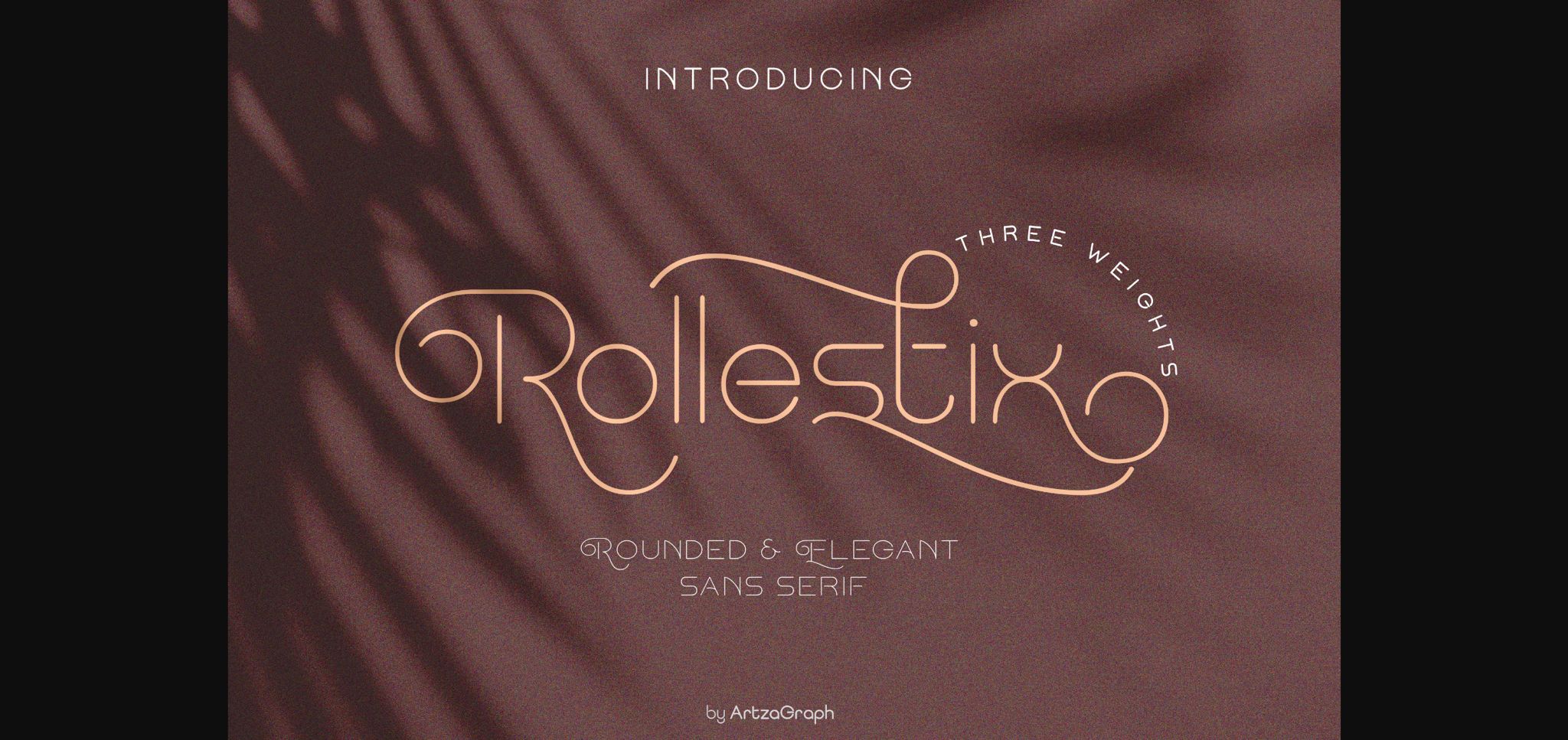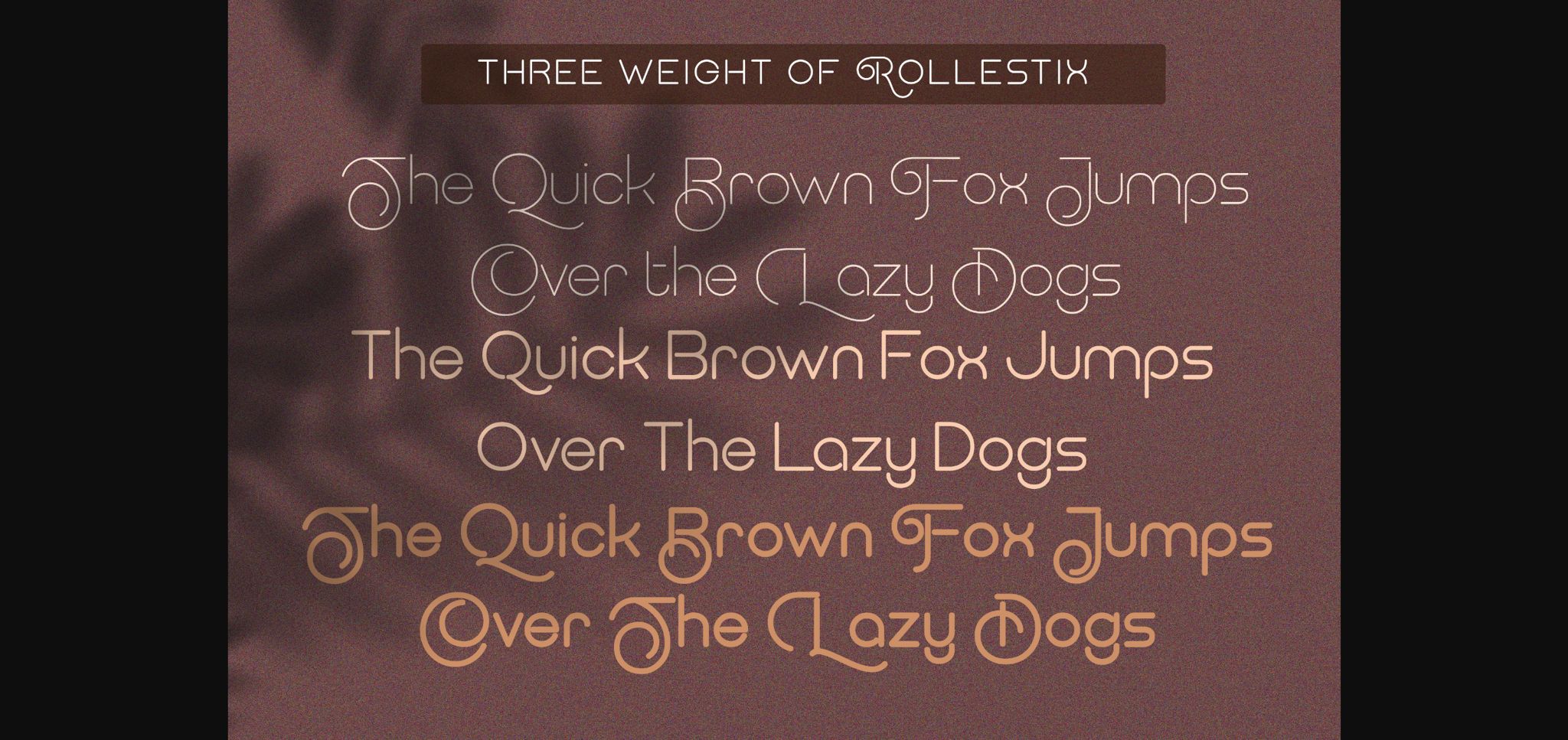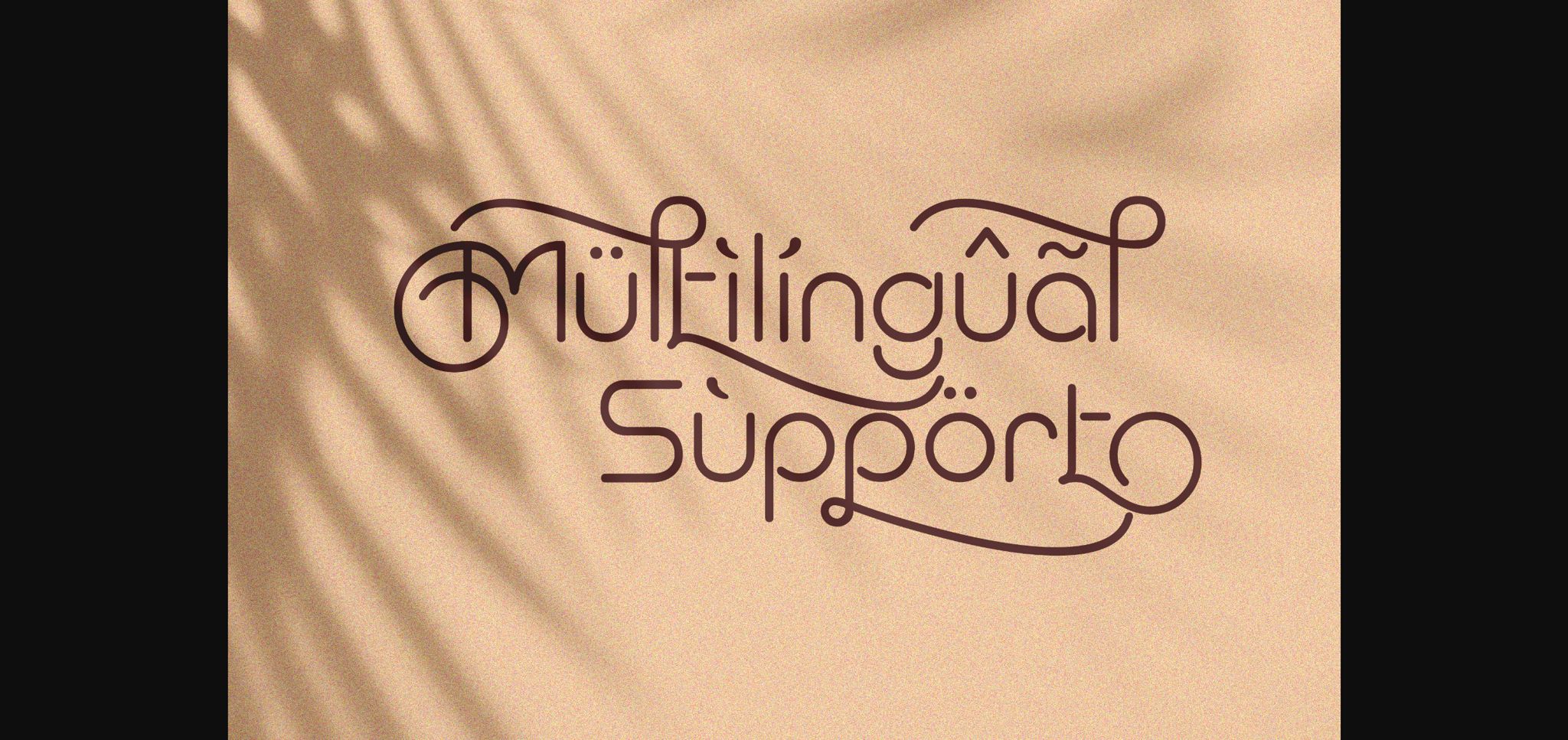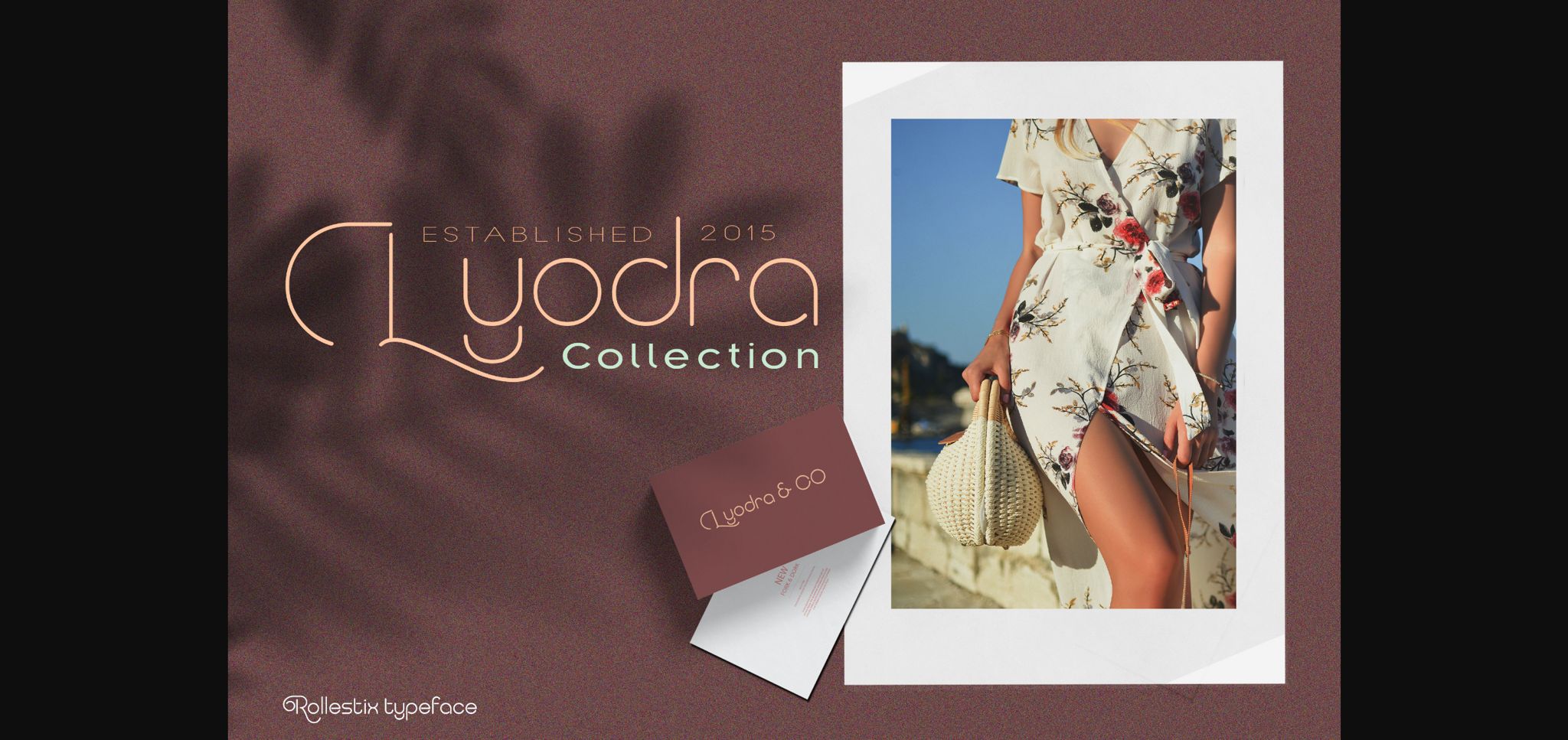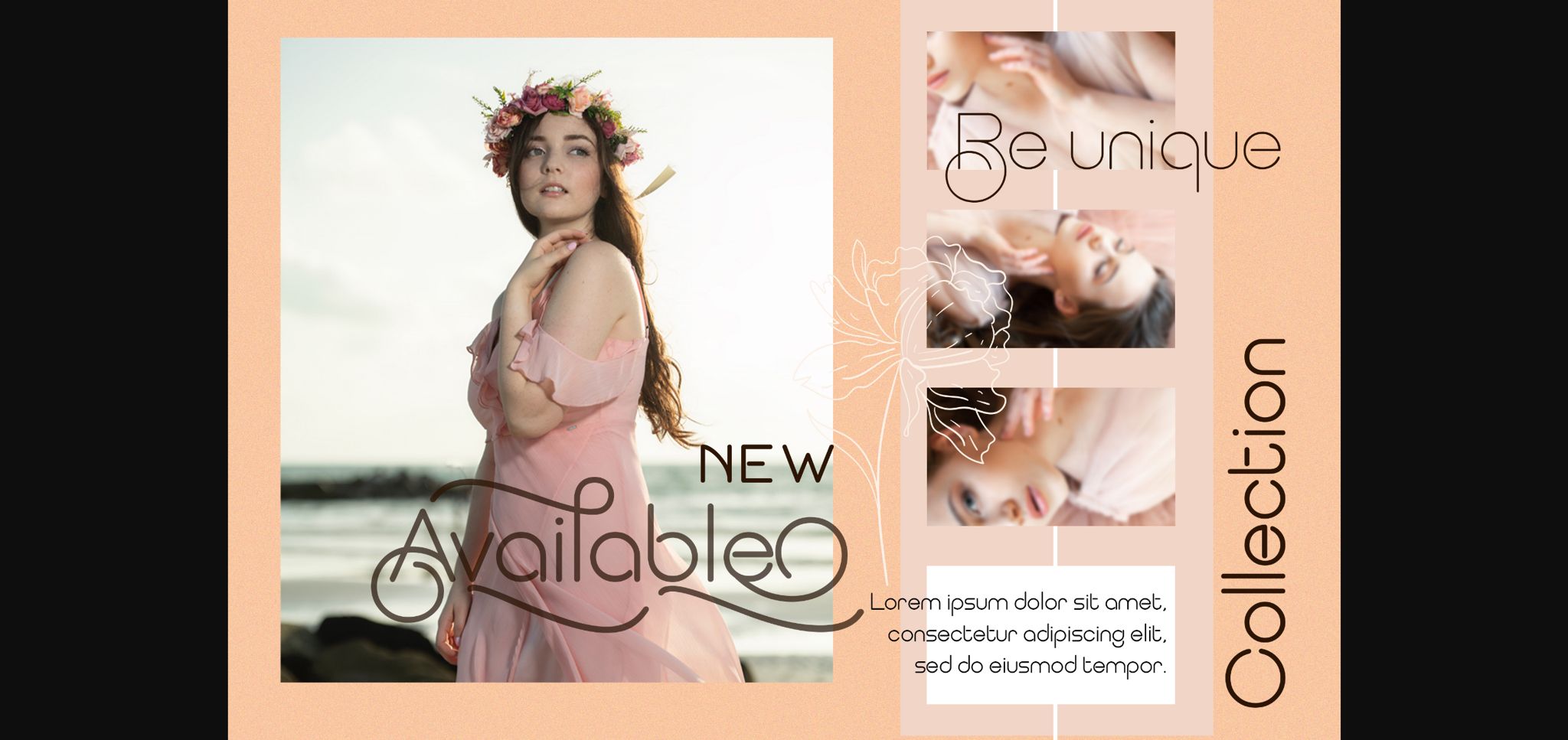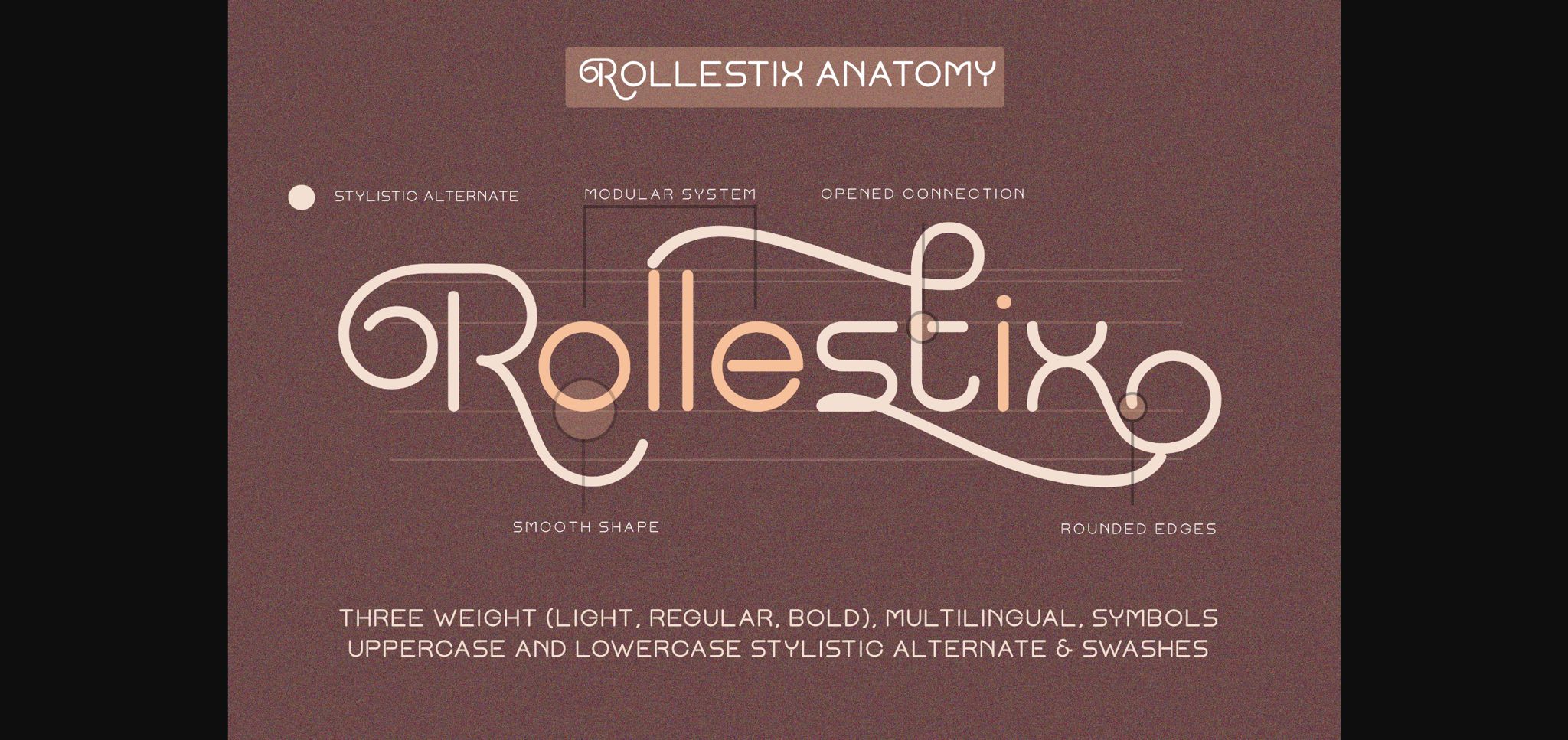
Rollestix Font
About Rollestix Font
Rollestix is a gorgeous sans serif font. It features simple lines, smooth curves and beautiful swashes. It comes packed in 3 styles and it will complement any design need perfectly with its perfectly balanced mix of the smooth and sharp!